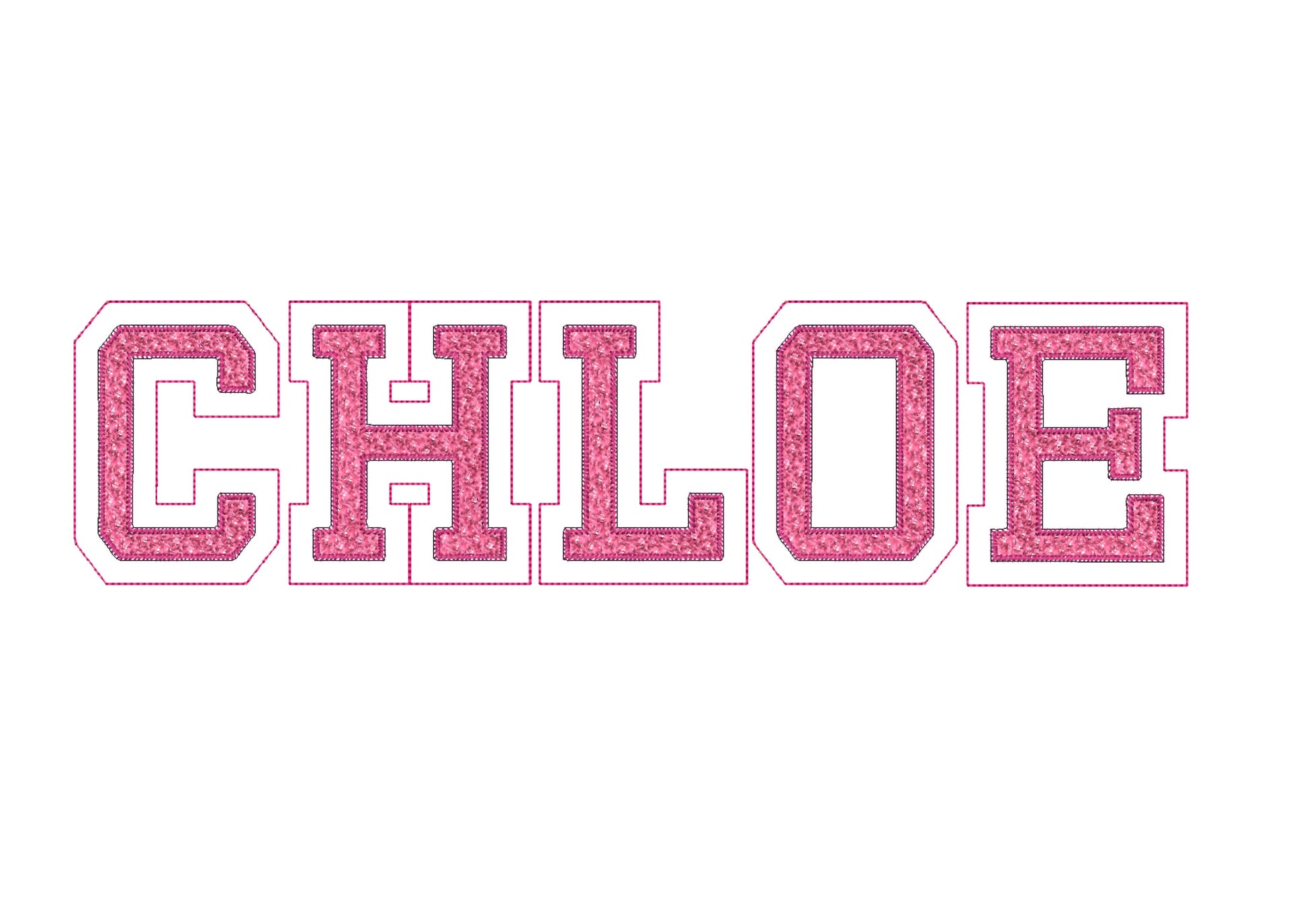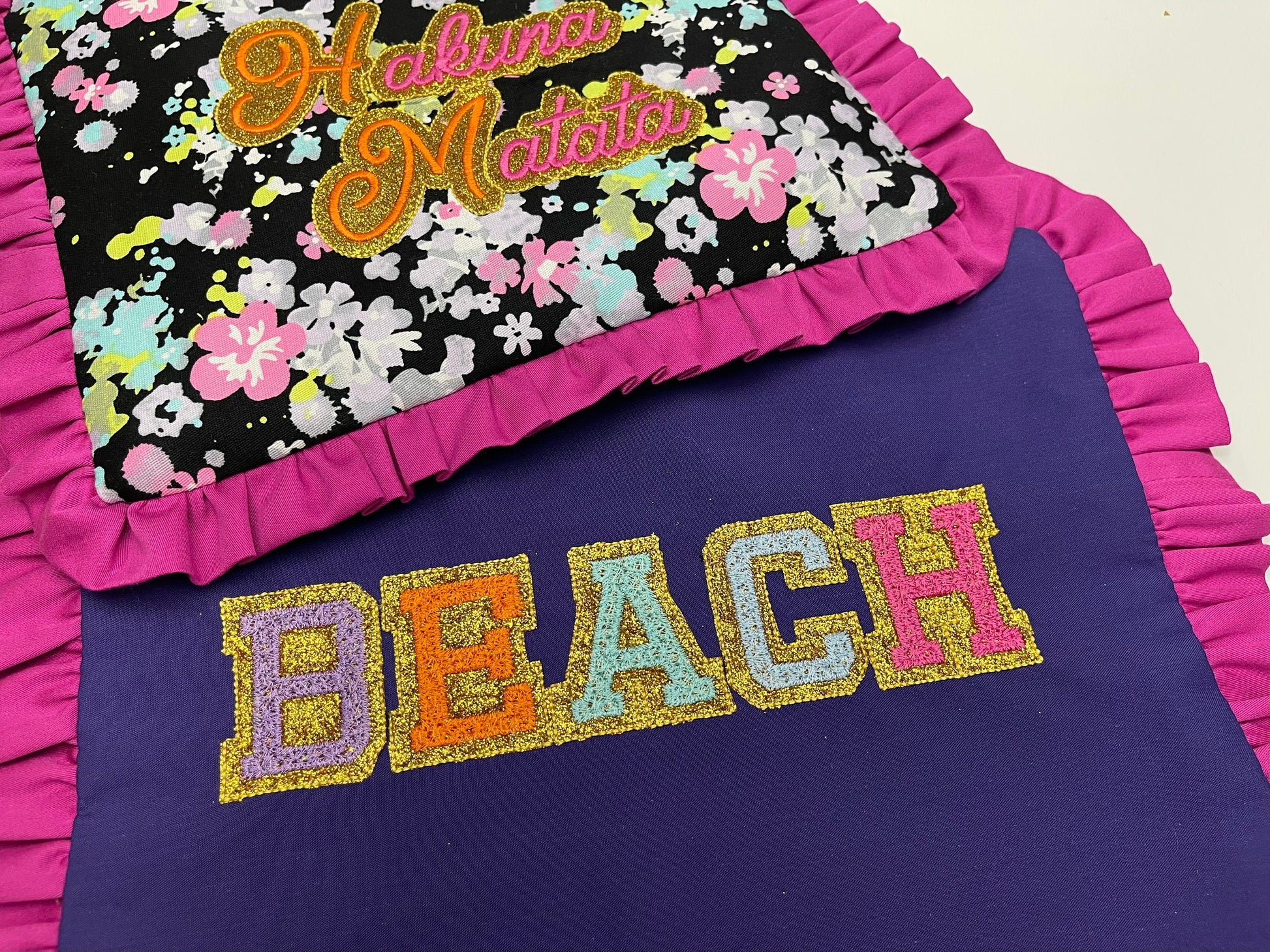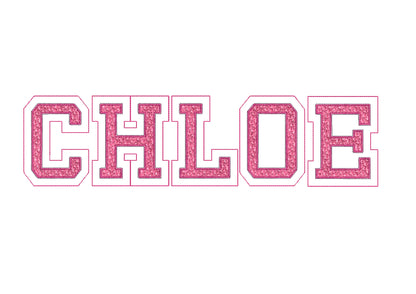
Or click to open the linkA faux chenille varsity patch font for glitter vinyl, in small and big sizes, for letterman-style names and numbers.
Stitch over glitter vinyl or mylar, then tear or trim along the edges. Letters A to Z and numbers 0 to 9 in eight sizes: 1.5, 1.7, 2, 2.5, 3, 3.5, 4.5 and 5 inches.